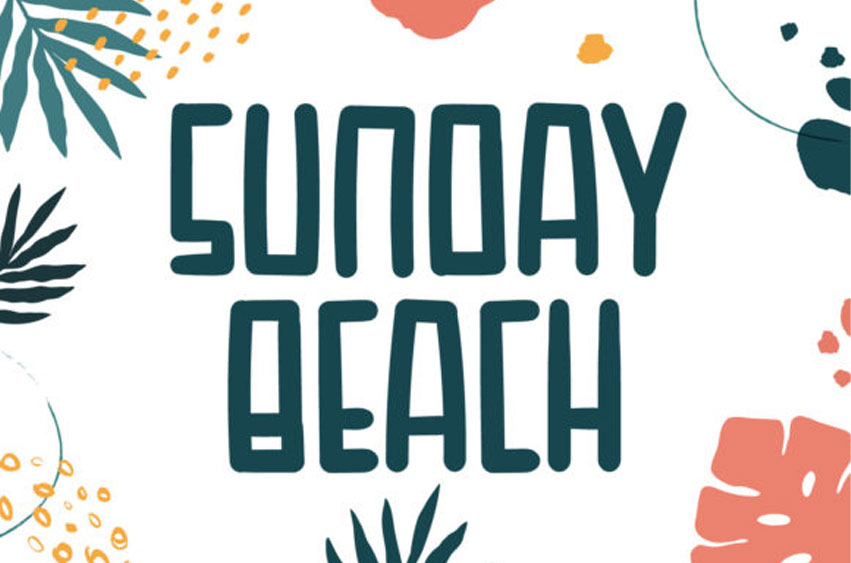
Sunday Beach Font
Sunday Beach Font is a cool and fun display font.
Add this squared lettered and friendly font to your library and employ it to a wide range of creations that require a jolly touch.